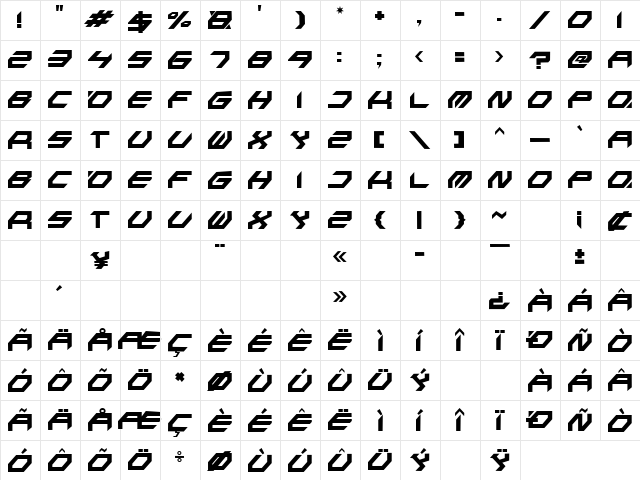
PLUTON Regular
| Designer | saepul milah |
Design Context for PLUTON Typeface
PLUTON is a composed and adaptable typeface that performs quietly and consistently across a wide range of design contexts.